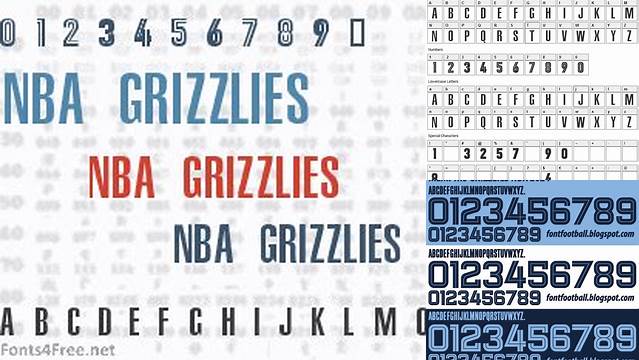
NBA Grizzlies Font: Free Download And Usage
Hey guys! Are you a big fan of the Memphis Grizzlies and want to incorporate their iconic font into your designs? Or maybe you're just a font enthusiast looking for a unique typeface for your next project? Well, you've come to the right place! In this comprehensive guide, we'll dive deep into the world of the NBA Grizzlies regular font, exploring everything from its history and characteristics to where you can download it for free and how to use it effectively. We'll also discuss some of the legal considerations and alternatives if you're looking for something similar. So, let's get started and unleash your creativity with this awesome font!
What is the NBA Grizzlies Regular Font?
First, let's understand what exactly the NBA Grizzlies Regular Font is. This font is the official typeface used by the Memphis Grizzlies, a professional basketball team in the National Basketball Association (NBA). As part of the team's brand identity, the font is prominently featured in their logos, jerseys, marketing materials, and other official communications. The Grizzlies font exudes a sense of power, dynamism, and modernity, reflecting the team's energetic and competitive spirit. Its strong, angular letterforms and bold strokes convey a sense of authority and confidence, making it instantly recognizable and associated with the Grizzlies brand. The font's unique design also adds a touch of edginess and distinctiveness, setting it apart from other generic sports fonts. The NBA Grizzlies Regular Font isn't just a typeface; it's a symbol of the team's identity, history, and connection with its fans. It embodies the Grizzlies' values and aspirations, creating a cohesive and recognizable visual language that resonates with audiences both on and off the court. The font's consistent use across various platforms helps to reinforce brand recognition and create a strong visual presence for the team. Whether it's displayed on the jumbotron at FedExForum or printed on merchandise sold in the team store, the Grizzlies font serves as a constant reminder of the team's identity and legacy. This consistent application strengthens the bond between the team and its supporters, fostering a sense of belonging and shared identity. The font acts as a visual shorthand, instantly communicating the essence of the Grizzlies brand to anyone who sees it. Furthermore, the NBA Grizzlies Regular Font's impact extends beyond the team itself, influencing graphic design trends and inspiring other sports teams to develop their unique visual identities. The font's bold and distinctive style has set a precedent for modern sports branding, demonstrating the power of typography in shaping a team's image and connecting with its fan base. The success of the Grizzlies font has also highlighted the importance of investing in professional branding and design, recognizing the value of creating a cohesive visual identity that resonates with audiences. By carefully crafting their font and visual language, the Grizzlies have established a strong and memorable brand presence that distinguishes them from their competitors. This recognition underscores the font's significance as more than just a set of characters; it's a powerful tool for communication and connection.
Characteristics of the Font
Now, let's delve into the specific characteristics of the NBA Grizzlies Regular Font. This font is characterized by its bold, sharp, and angular letterforms, giving it a dynamic and assertive appearance. The font typically features strong, uniform strokes that create a sense of stability and power. One of the most distinctive features is its use of geometric shapes and clean lines, resulting in a modern and streamlined design. The letterforms are often slightly condensed, which enhances the font's impact and readability, especially in headlines and titles. This condensation allows the font to pack a punch, making it ideal for situations where you want to grab attention quickly. The font's overall aesthetic is one of strength and energy, perfectly aligning with the Memphis Grizzlies' brand identity. Its sharp edges and bold presence convey a sense of confidence and determination, mirroring the team's competitive spirit on the basketball court. The font's modern and streamlined design also speaks to the team's forward-thinking approach and commitment to excellence. The NBA Grizzlies Regular Font is not just about looking good; it's about communicating the team's values and aspirations. The deliberate use of geometric shapes and clean lines reflects a sense of precision and professionalism, further enhancing the font's appeal. The font's attention to detail is evident in every letterform, ensuring consistency and legibility across various applications. This meticulous design contributes to the font's overall effectiveness in conveying the Grizzlies' brand message. The font's versatile nature allows it to be used in a variety of contexts, from large-scale graphics on the jumbotron to smaller text in marketing materials. Its strong visual presence ensures that it remains recognizable and impactful, regardless of the size or medium. The font's ability to adapt to different applications underscores its value as a key element of the Grizzlies' brand identity. The NBA Grizzlies Regular Font's characteristics make it a popular choice not only for sports branding but also for other design projects that require a bold and modern typeface. Its distinctive style and versatility make it a valuable asset for designers looking to create impactful visual communications. The font's influence can be seen in various design fields, from advertising and marketing to web design and editorial layouts. Its popularity is a testament to its effectiveness in capturing attention and conveying a message with strength and clarity. The font's success also highlights the importance of considering the personality and characteristics of a typeface when choosing a font for a project. The right font can significantly enhance the overall impact of a design, while the wrong font can detract from it. The NBA Grizzlies Regular Font serves as an excellent example of how a well-designed typeface can contribute to the success of a brand or project.
How to Use the Font Effectively
Okay, so you've found a font that resembles the NBA Grizzlies typeface – great! Now, how do you use it effectively in your designs? The key is to use it strategically and in a way that complements your overall design aesthetic. The Grizzlies font, or a similar bold font, is best suited for headlines, titles, and other prominent text elements where you want to make a strong statement. Its boldness and sharpness make it highly effective for grabbing attention and conveying a sense of energy and dynamism. Avoid using it for large blocks of body text, as its strong characteristics can make it tiring to read for extended periods. Instead, pair it with a more legible and neutral font for your body text, such as a classic sans-serif like Open Sans or Lato. This will ensure that your content is both visually appealing and easy to read. When using the font, pay attention to kerning and letter spacing. The NBA Grizzlies Regular Font, or fonts with similar characteristics, often benefit from careful kerning adjustments to ensure a balanced and professional appearance. Kerning refers to the spacing between individual letters, and adjusting it can improve the overall readability and visual appeal of your text. Experiment with different font sizes to see what works best for your design. The font's boldness can be amplified by using it in larger sizes, but it's important to maintain a sense of proportion and balance. Consider the overall composition of your design and ensure that the font doesn't overpower other elements. Color is another important factor to consider when using the font. The Grizzlies' primary colors are navy blue, Beale Street blue, smoke blue, and grizzly brown, so incorporating these colors into your design can help to create a cohesive and on-brand look. However, the font also works well in other colors, such as black, white, and shades of gray. Experiment with different color combinations to see what best suits your project. Remember, the goal is to use the font in a way that enhances your message and strengthens your brand identity. The font's bold and modern aesthetic can be a valuable asset in creating impactful designs, but it's important to use it thoughtfully and strategically. Avoid overusing the font, as this can diminish its impact and make your design feel cluttered. Instead, use it sparingly and in key areas where you want to draw attention. When using the font in a logo or branding materials, consider how it will look in different contexts, such as on a website, on print materials, and on social media. The font should be legible and impactful across all platforms. It's also important to ensure that the font aligns with your brand's overall personality and values. The NBA Grizzlies Regular Font conveys a sense of strength, energy, and modernity, so it's best suited for brands that want to project a similar image. Ultimately, the best way to use the font effectively is to experiment and see what works best for your specific project. Don't be afraid to try new things and push the boundaries of your creativity. With careful planning and execution, you can use the font to create stunning and impactful designs that capture the essence of the Memphis Grizzlies and your own unique style.